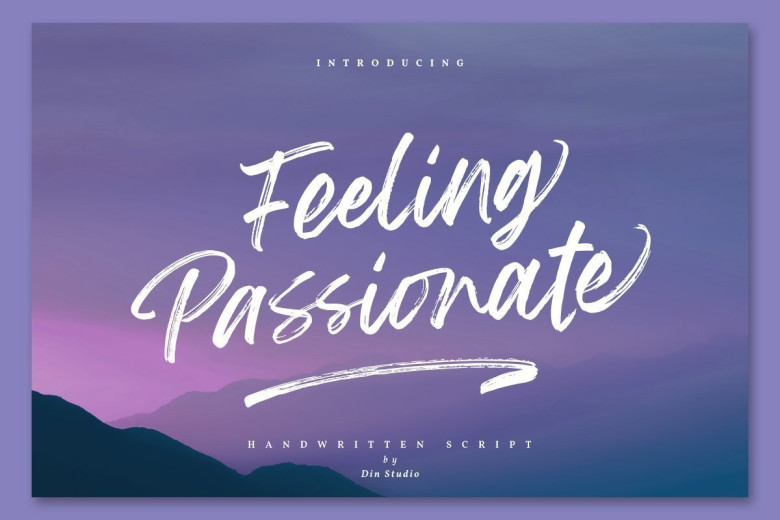
Feeling Passionate Brush Script Font
Feeling Passionate Font is a hand brush script products with extras. The style of handwriting and irregular but still elegant, and you will enjoy to use this font style. Feeling Passionate font has standard ligatures included – to give the font a more natural, scripted look when you have any double letters in your design. It also has multilingual support with accented characters for international users.
Feeling Passionate Font is perfect for branding projects, home-ware designs, product packaging – or simply as a stylish text overlay to any background image. This font is free for PERSONAL USE. Link to purchase full version and commercial license: HERE